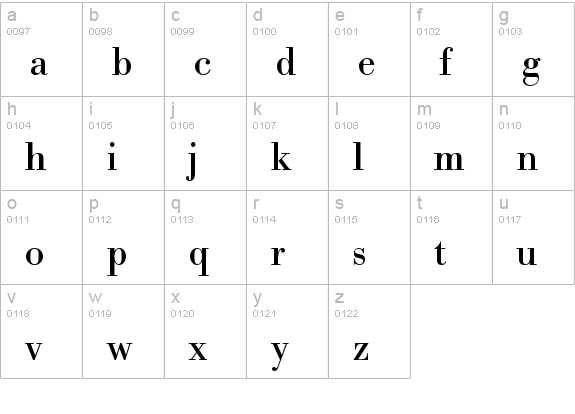
ModernBodoni-Regular is the standard, neutral variant in the ModernBodoni typeface family \xE2\x80\x94 well suited to general body text, paragraphs, and standard typographic work.
ModernBodoni-Regular font is a classic and elegant typeface that exudes sophistication and style. With its timeless design and clean lines, this font is perfect for adding a touch of class to any project. The sleek serifs and graceful curves of ModernBodoni-Regular make it a versatile choice for a wide range of applications, from luxury branding to editorial design. What sets ModernBodoni-Regular apart is not only its aesthetic appeal but also its availability for free download at FontsMarket.com. This makes it accessible to designers, creatives, and enthusiasts looking to elevate their work with a premium-quality font without breaking the bank. Whether you're working on a print project, website design, or any other creative endeavor, ModernBodoni-Regular is a reliable choice that will never go out of style. Download it for free today and enhance your designs with this timeless typeface.